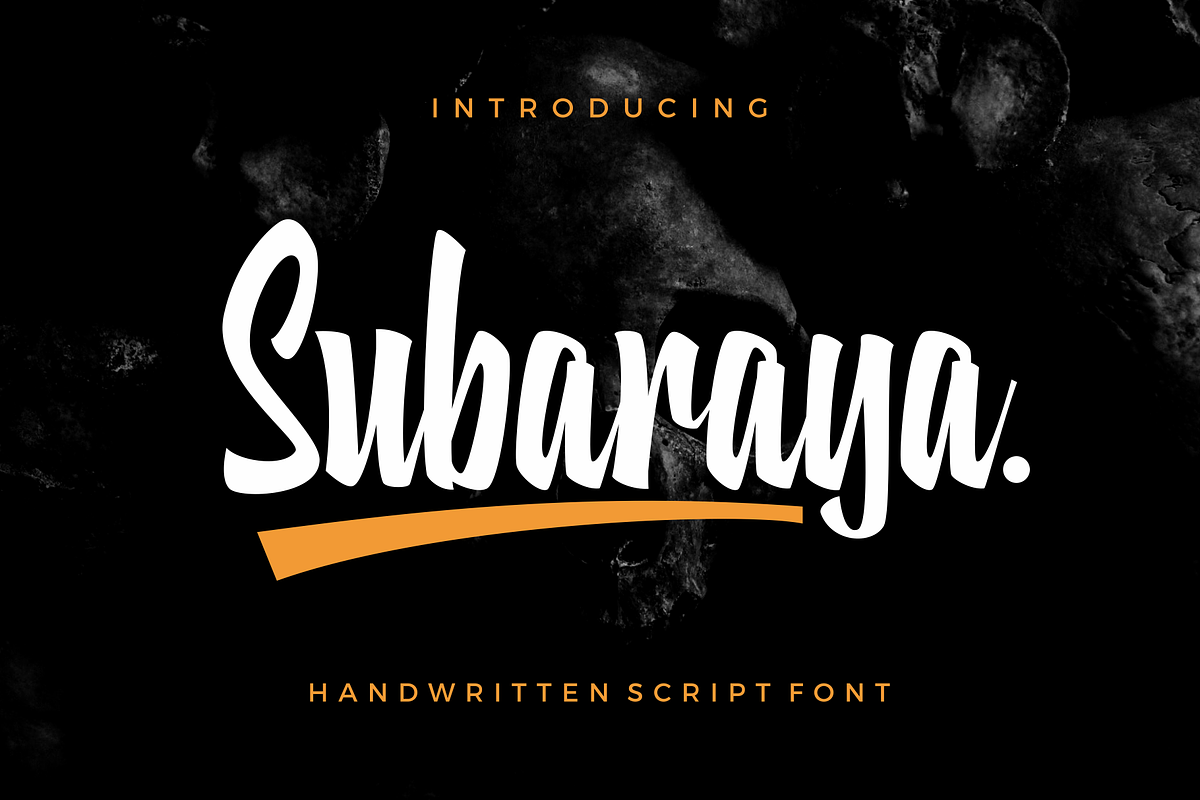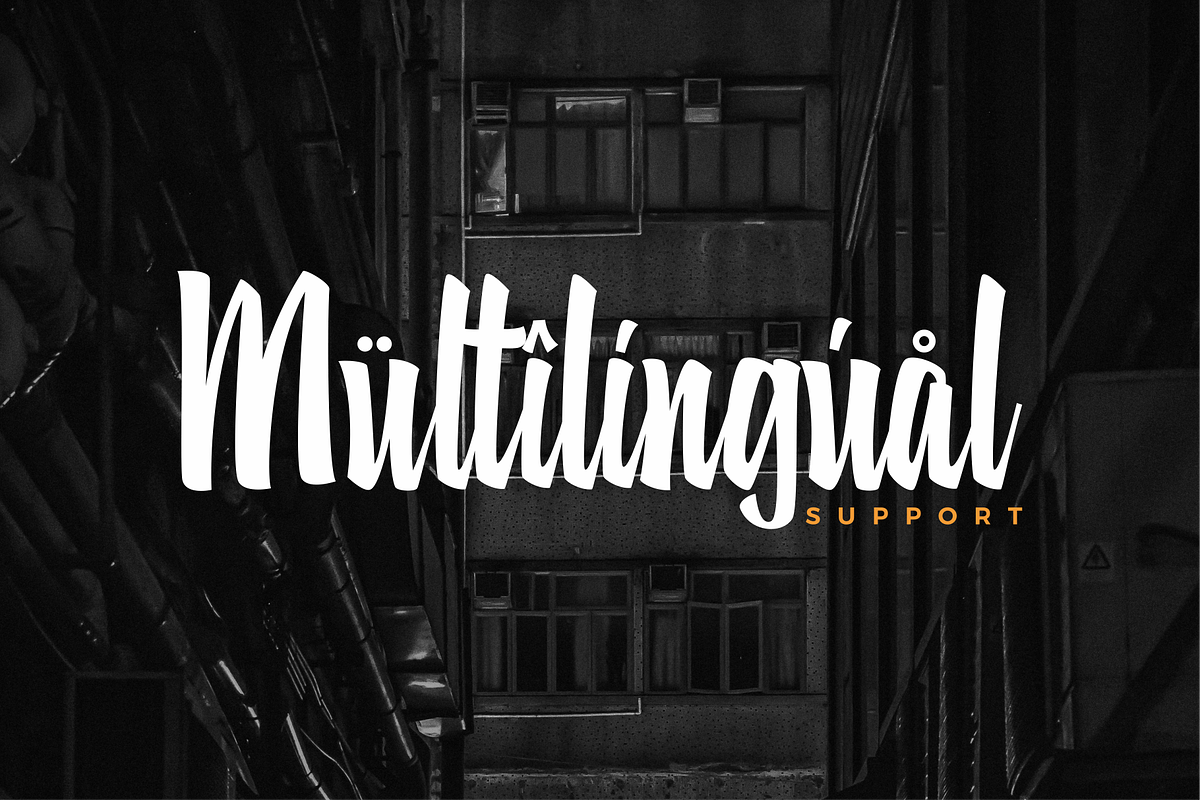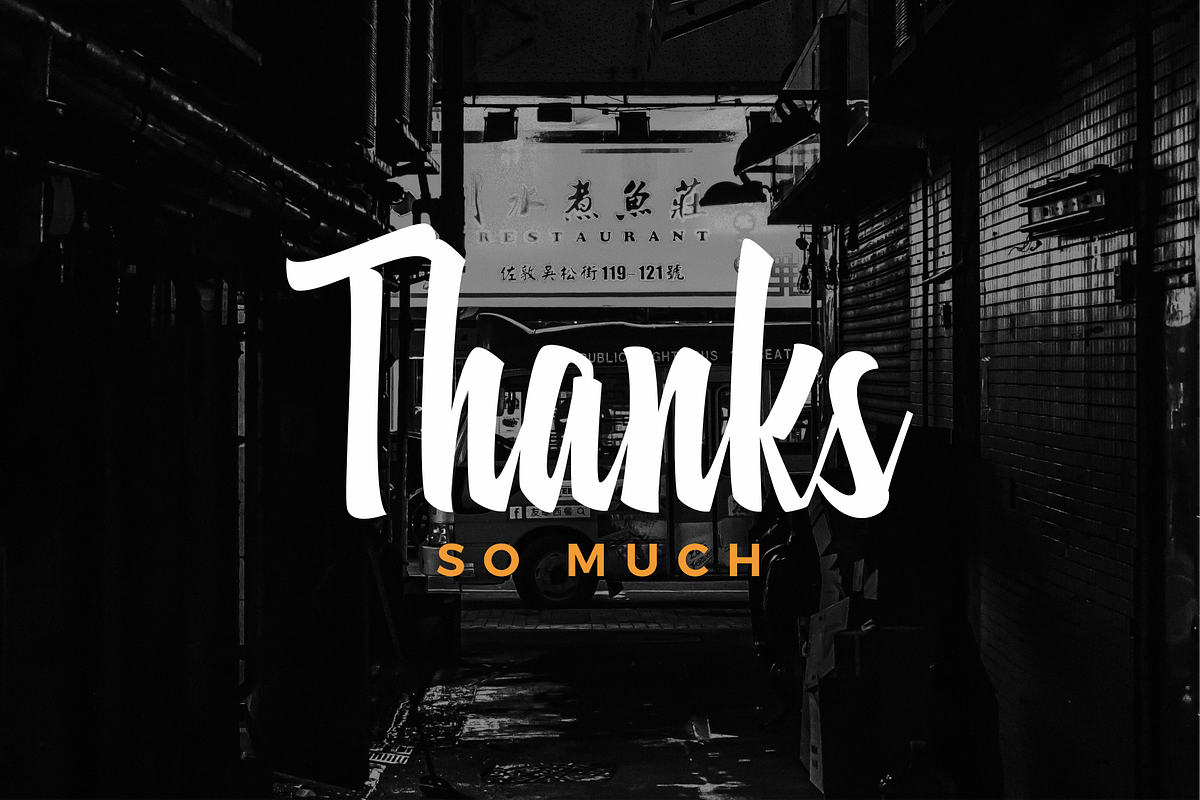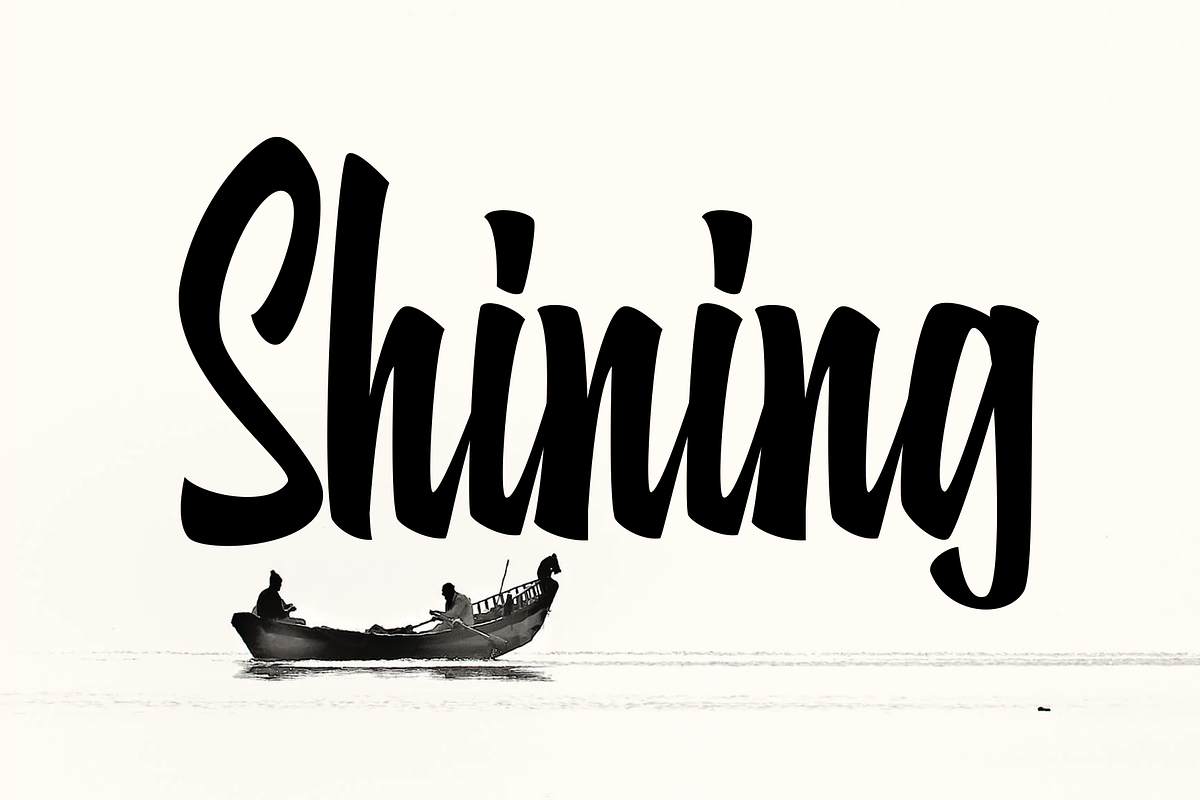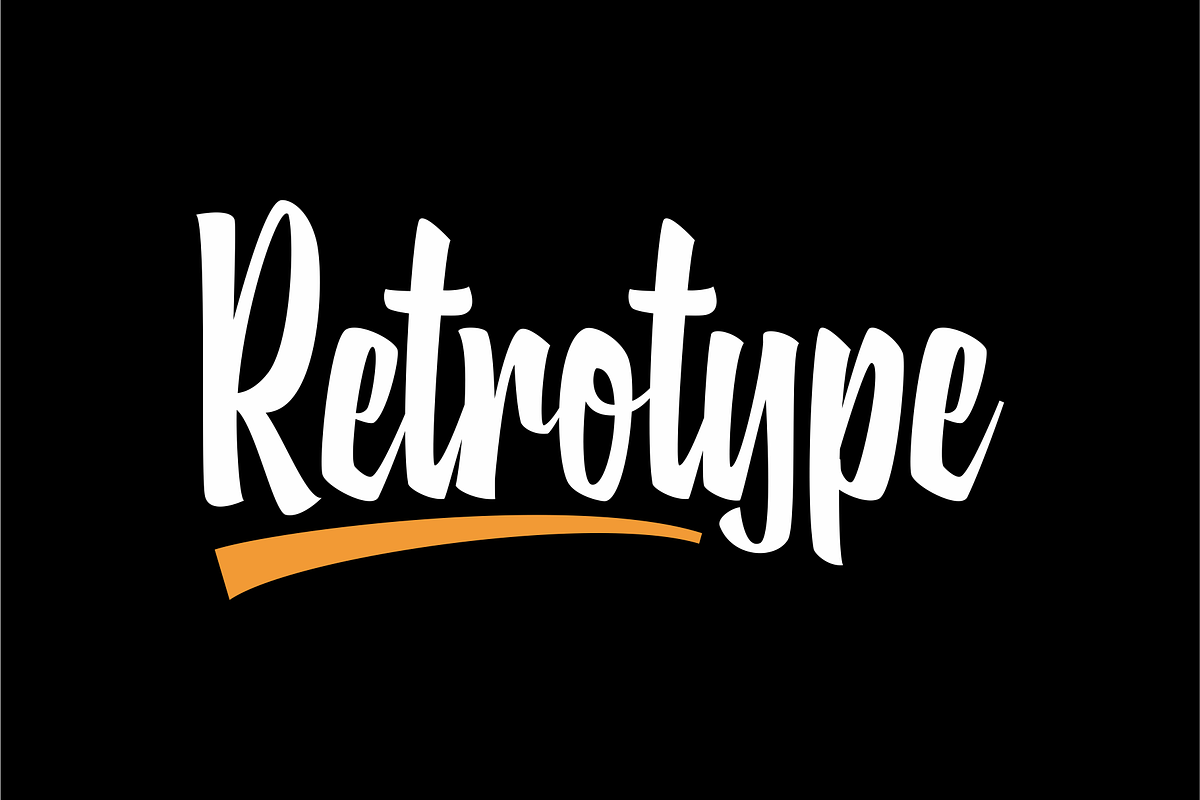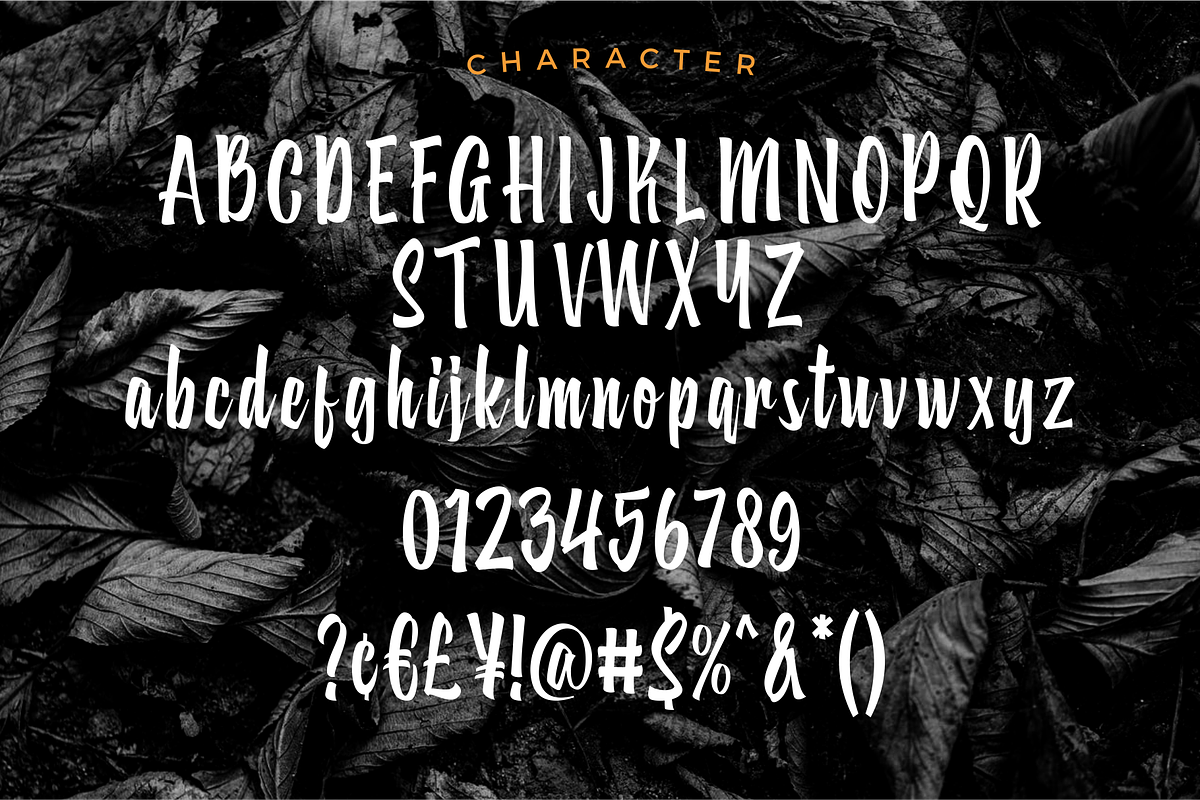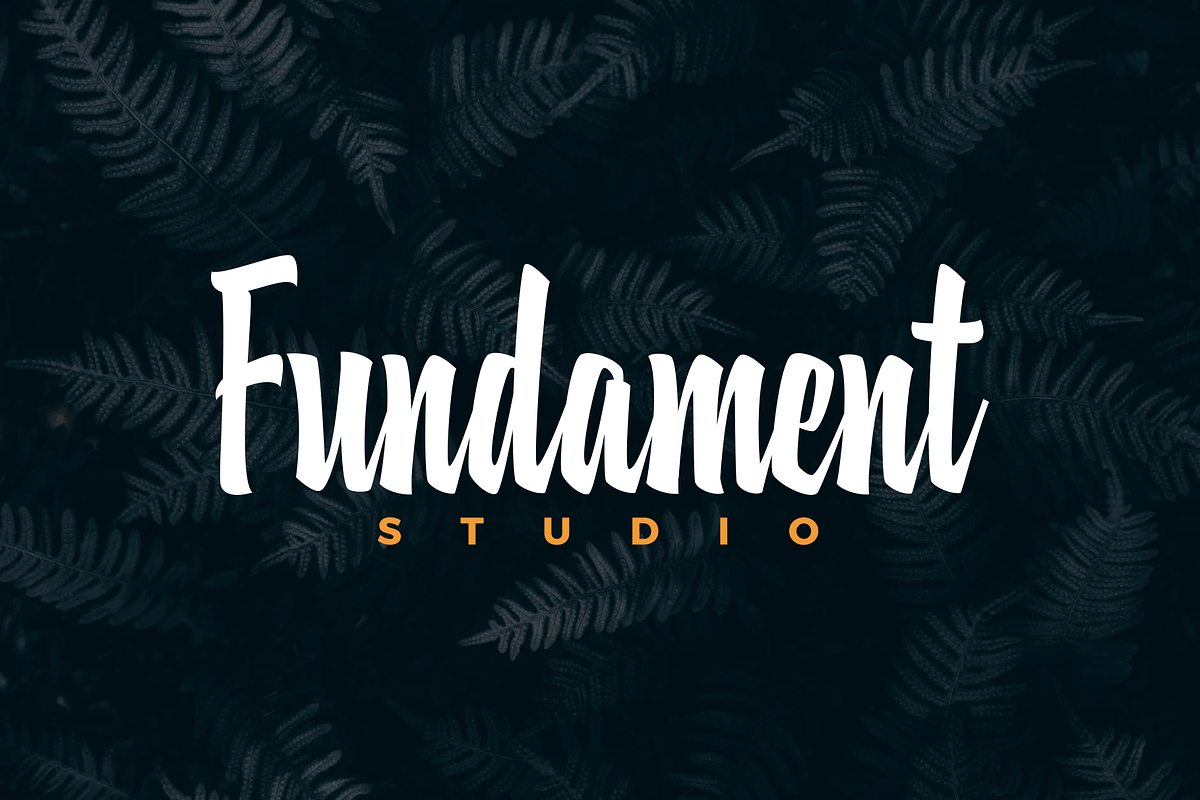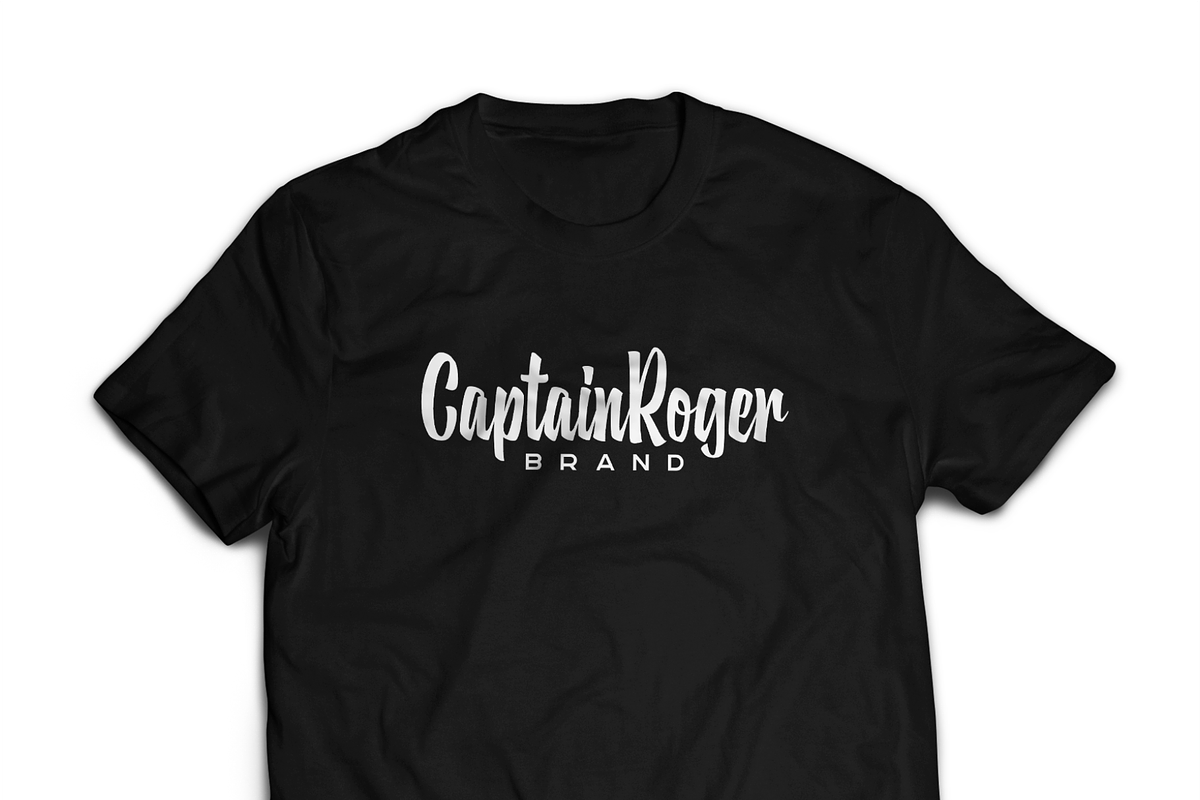
Subaraya Script
Subaraya is a font with a handwritten script style, giving a masculine touch to your designs such as logo type, headline, printed designs on t-shirts and others.